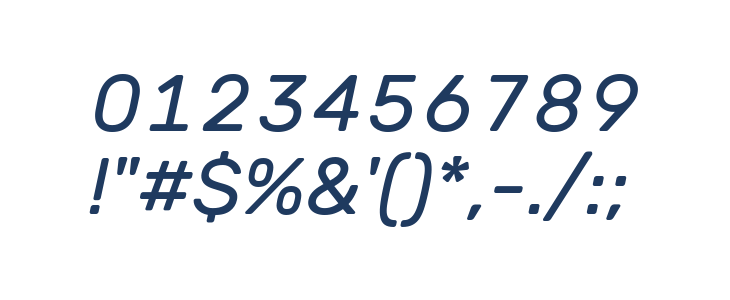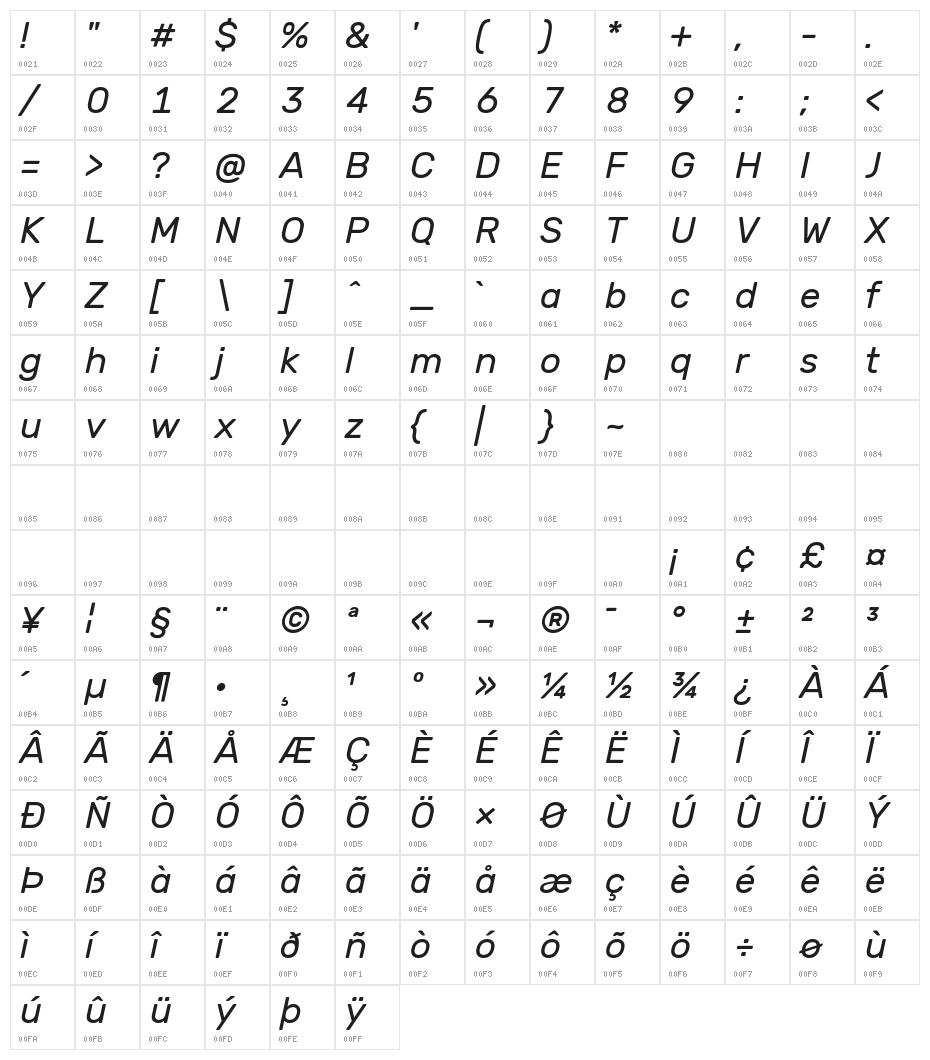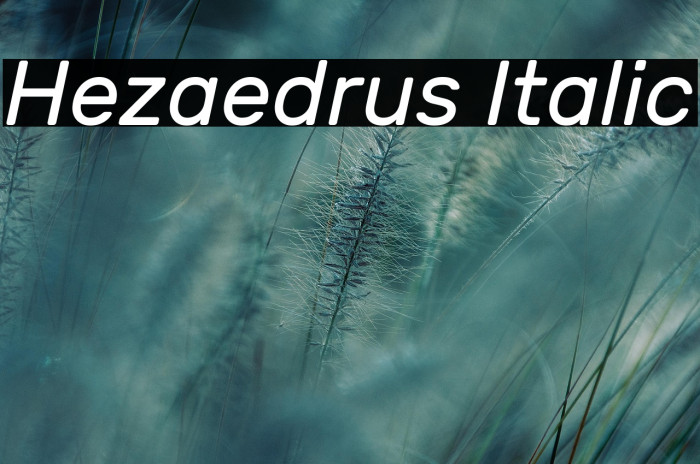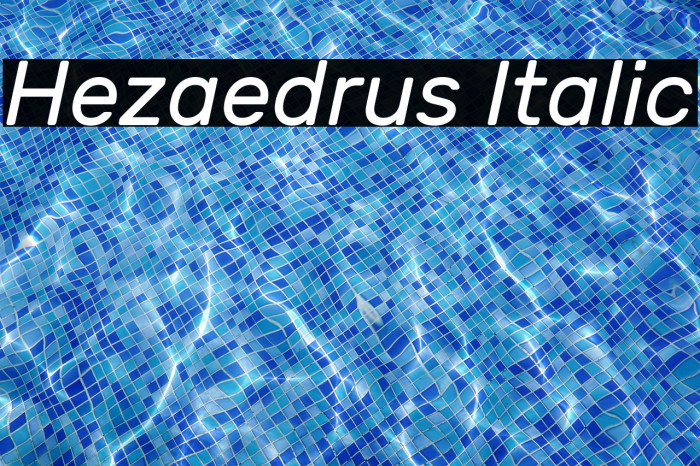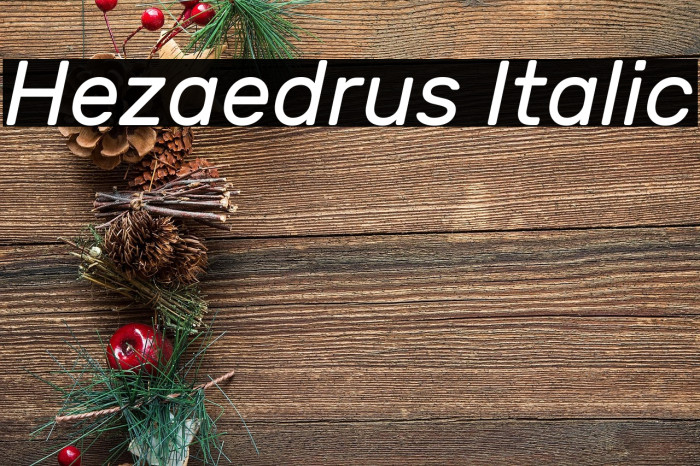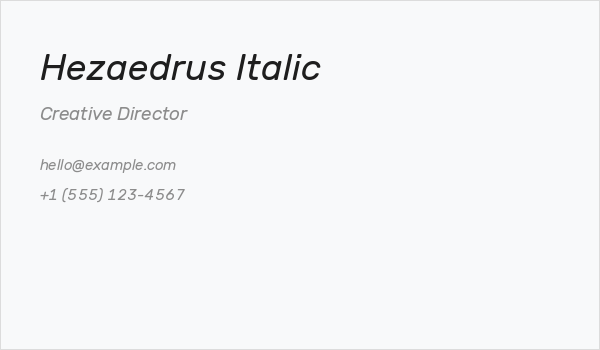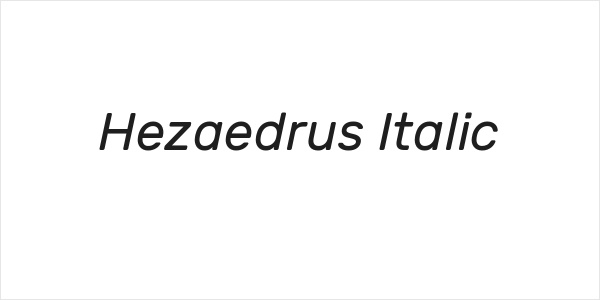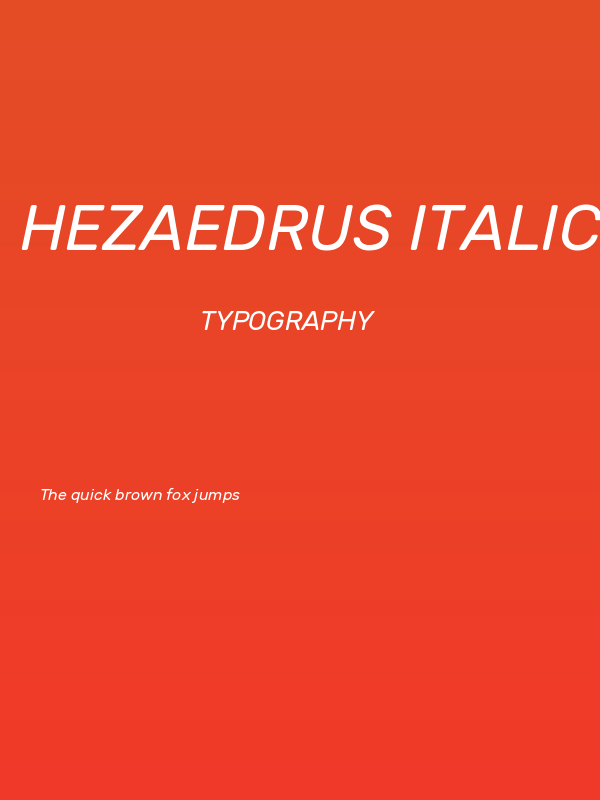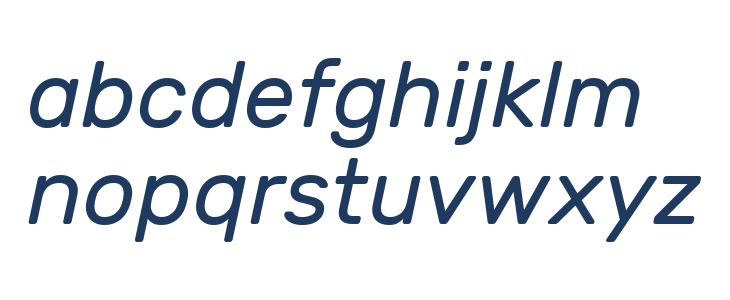
Hezaedrus Italic Font
Hezaedrus Italic Description
This font features a sleek and modern design with a subtle italic slant, giving it a dynamic and forward-moving appearance. The characters are well-proportioned with a consistent stroke width, contributing to a clean and professional look. The uppercase and lowercase letters are distinct and easy to read, with a slight curvature that adds a touch of elegance. The numerals are clear and balanced, making them suitable for both text and numeric data. Special characters are included, maintaining the font's cohesive style. Overall, this font is versatile and can be used in various design contexts.